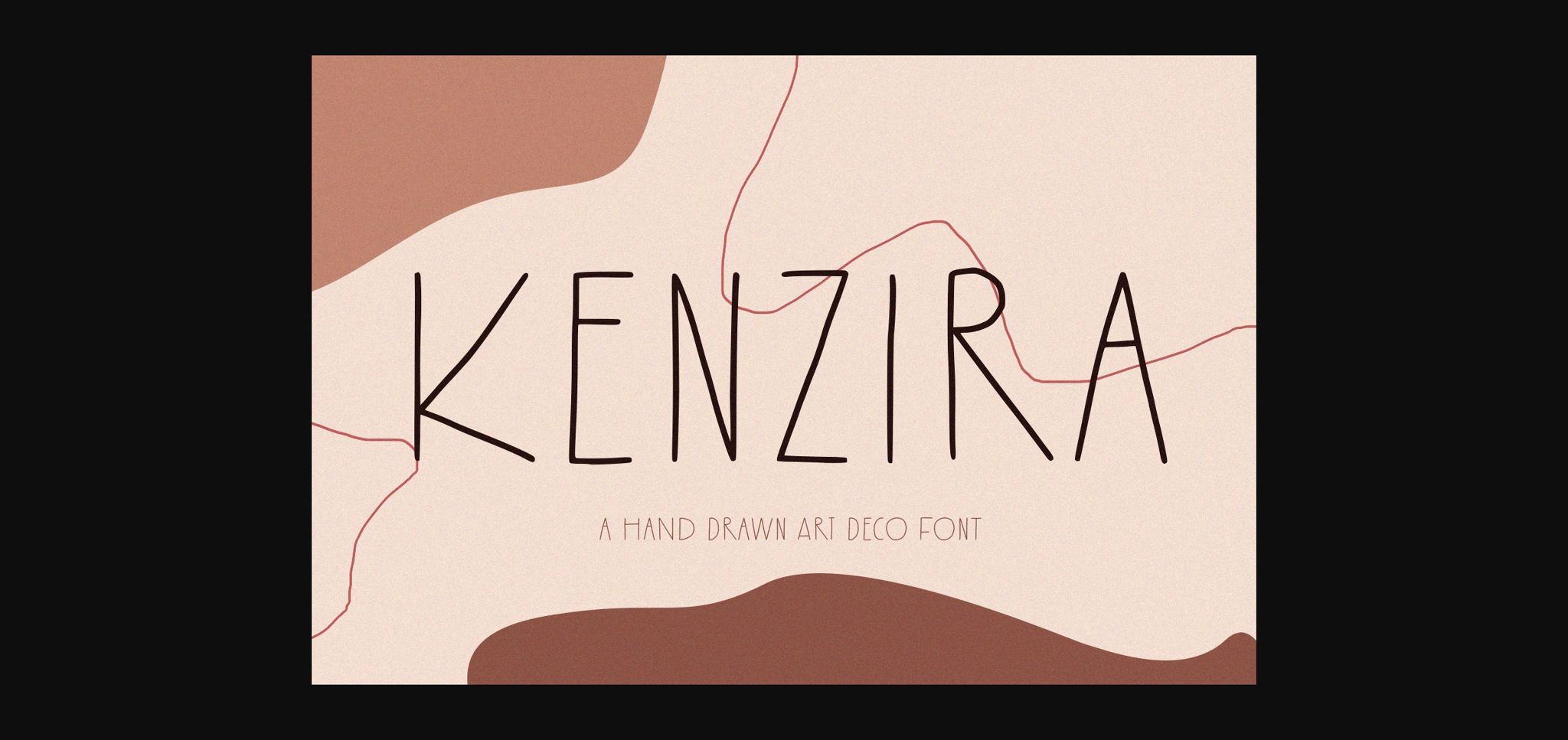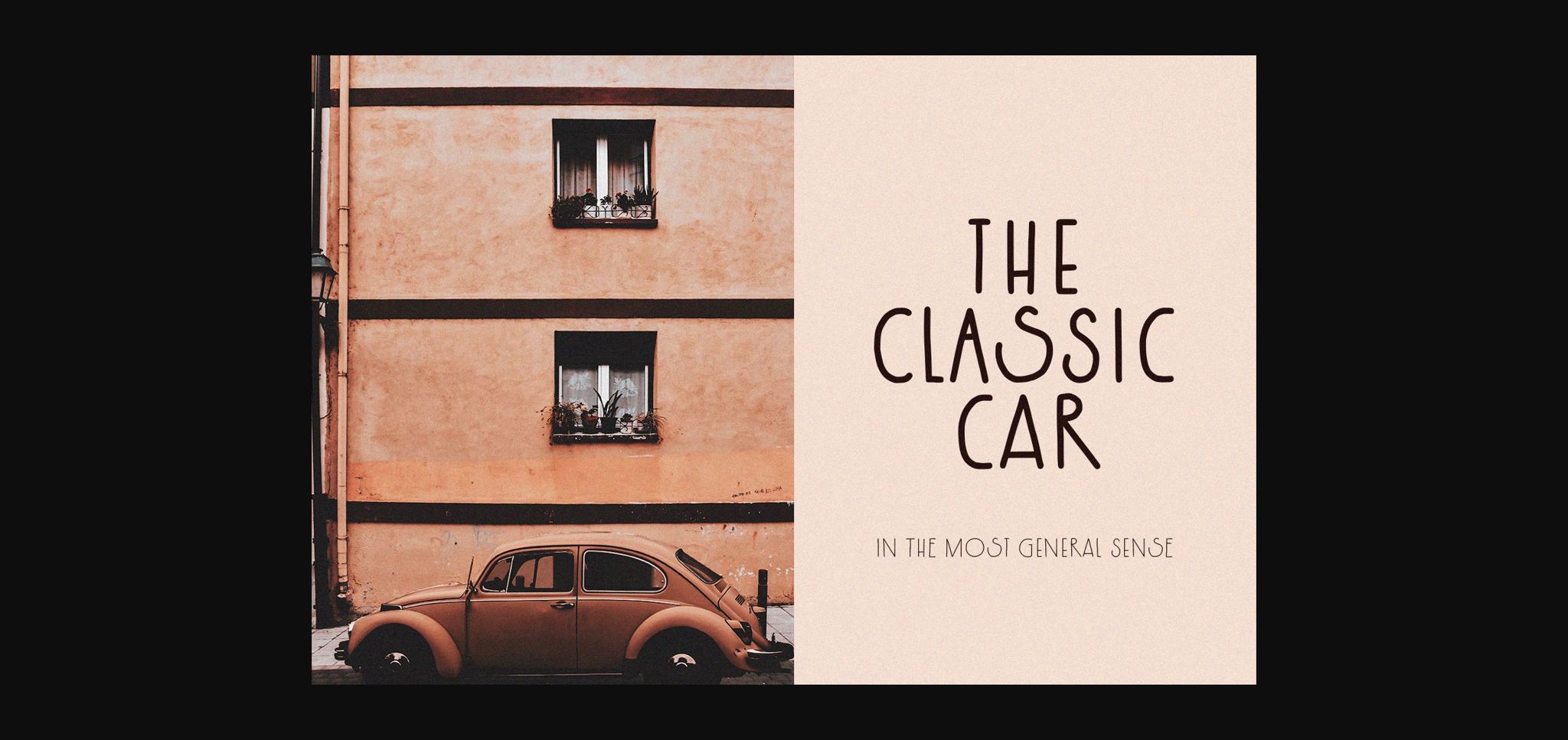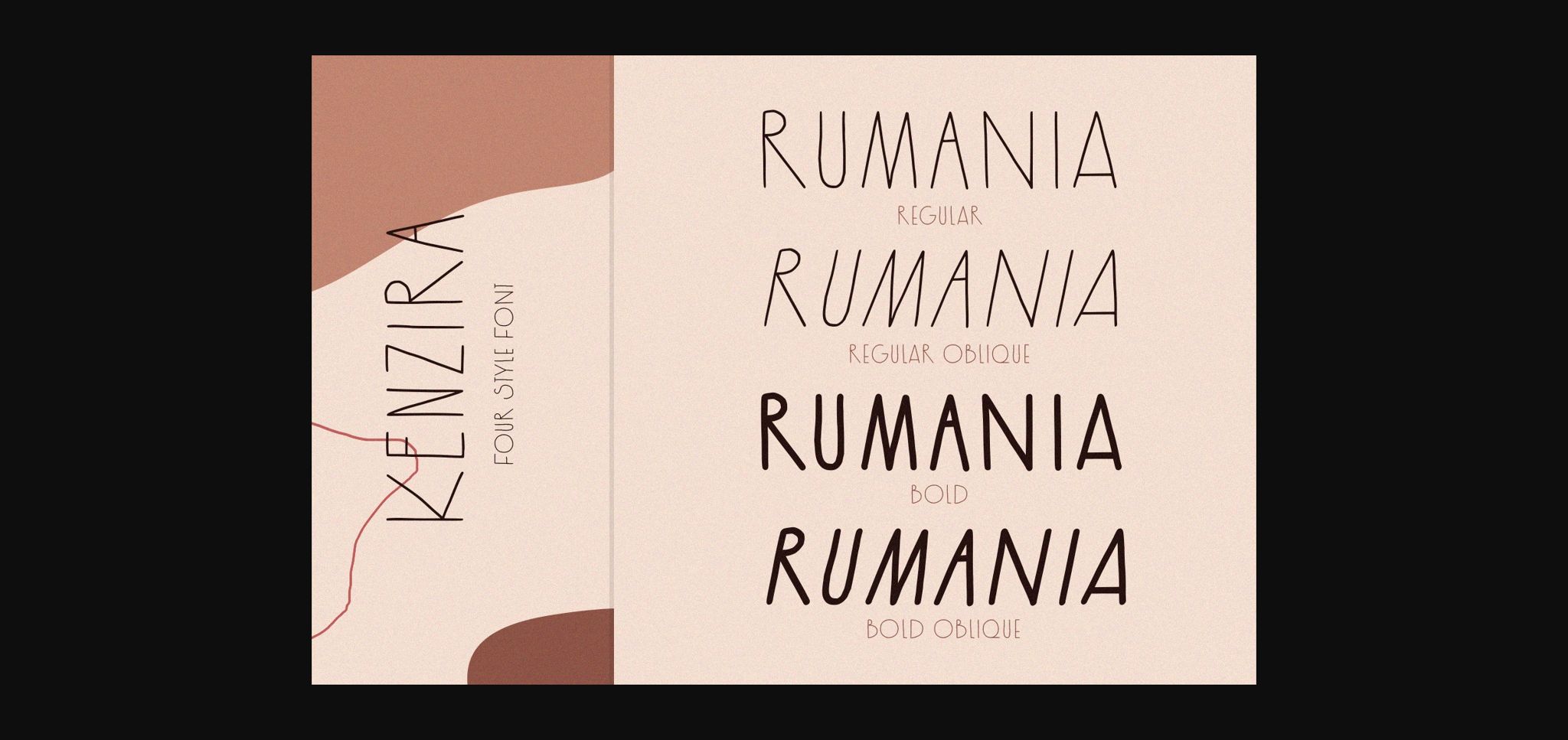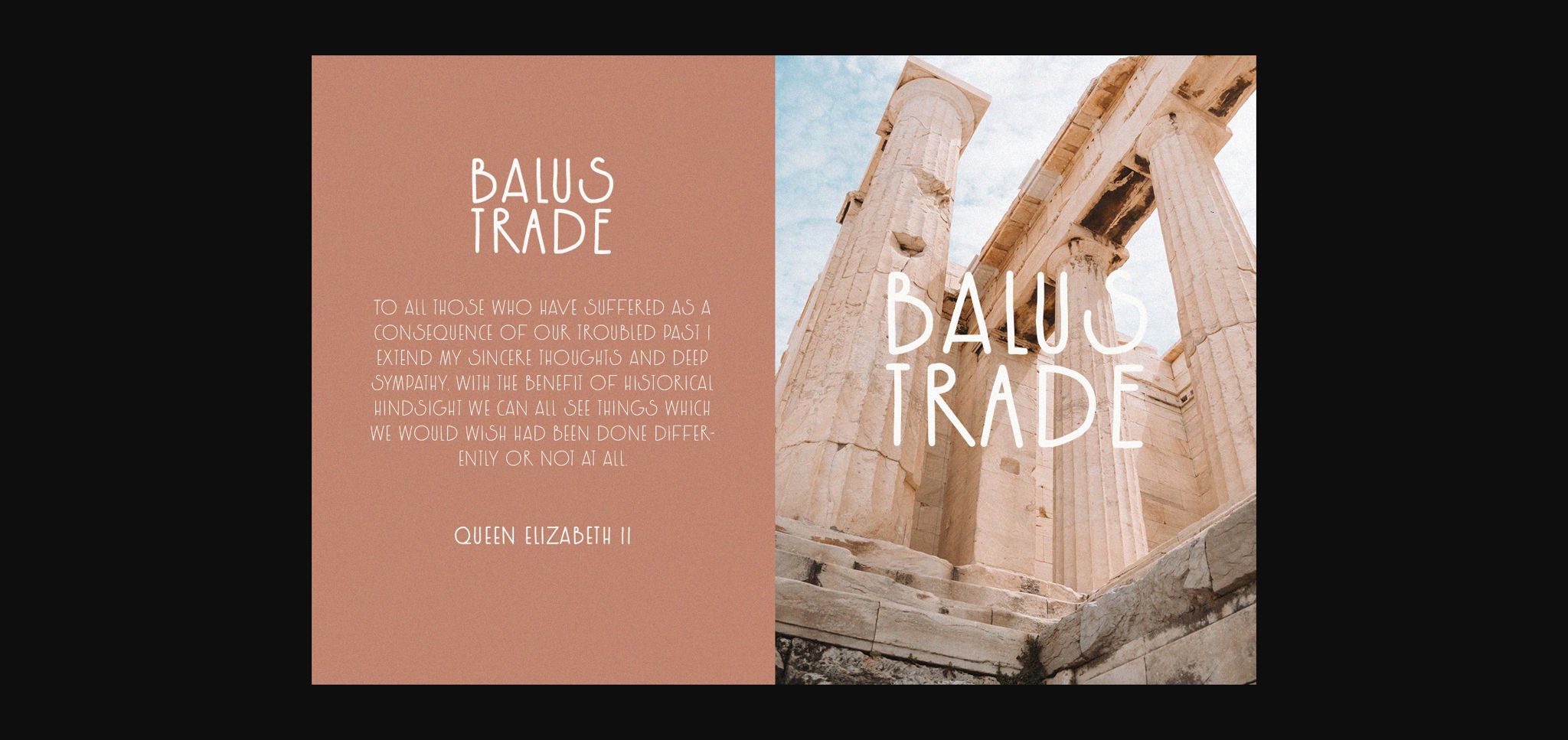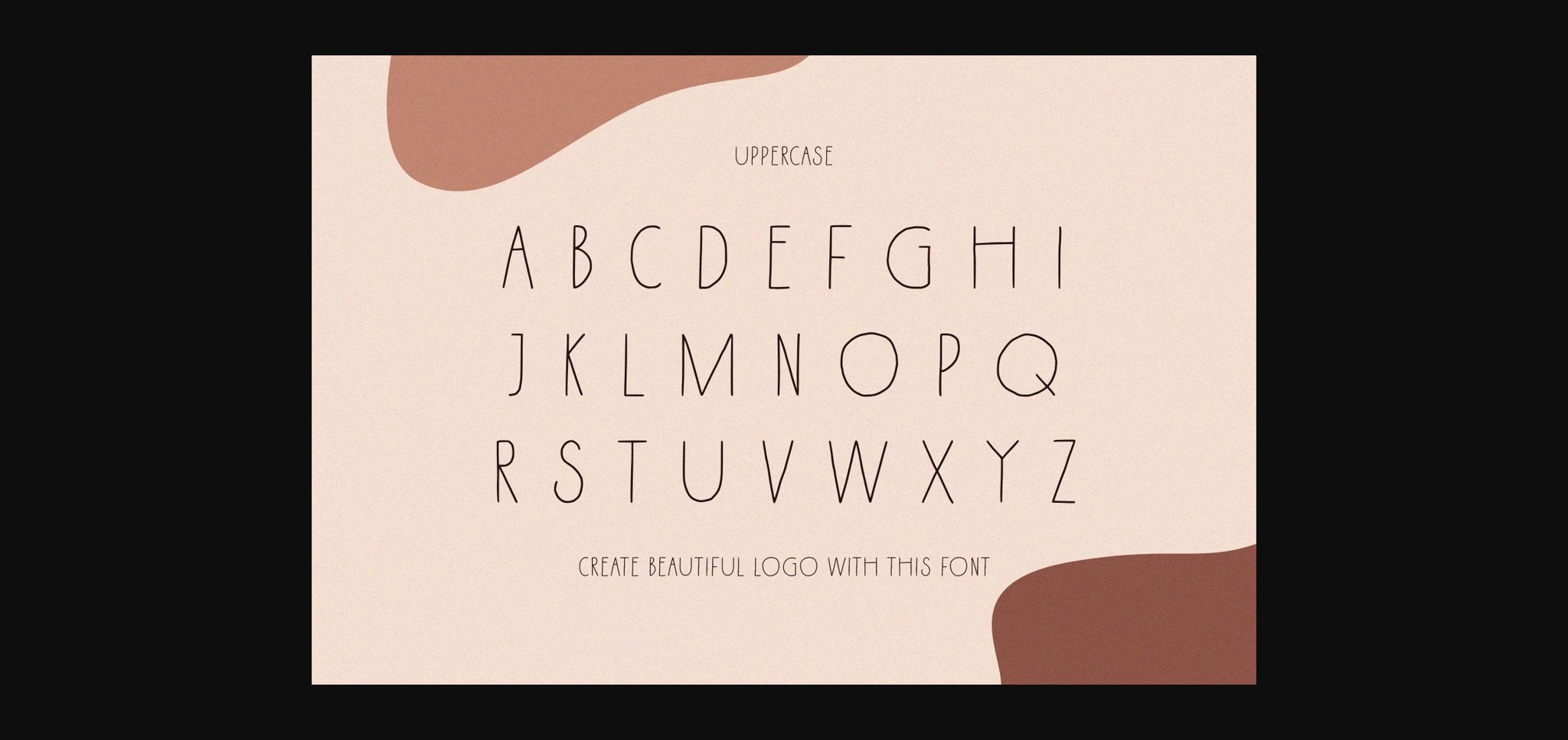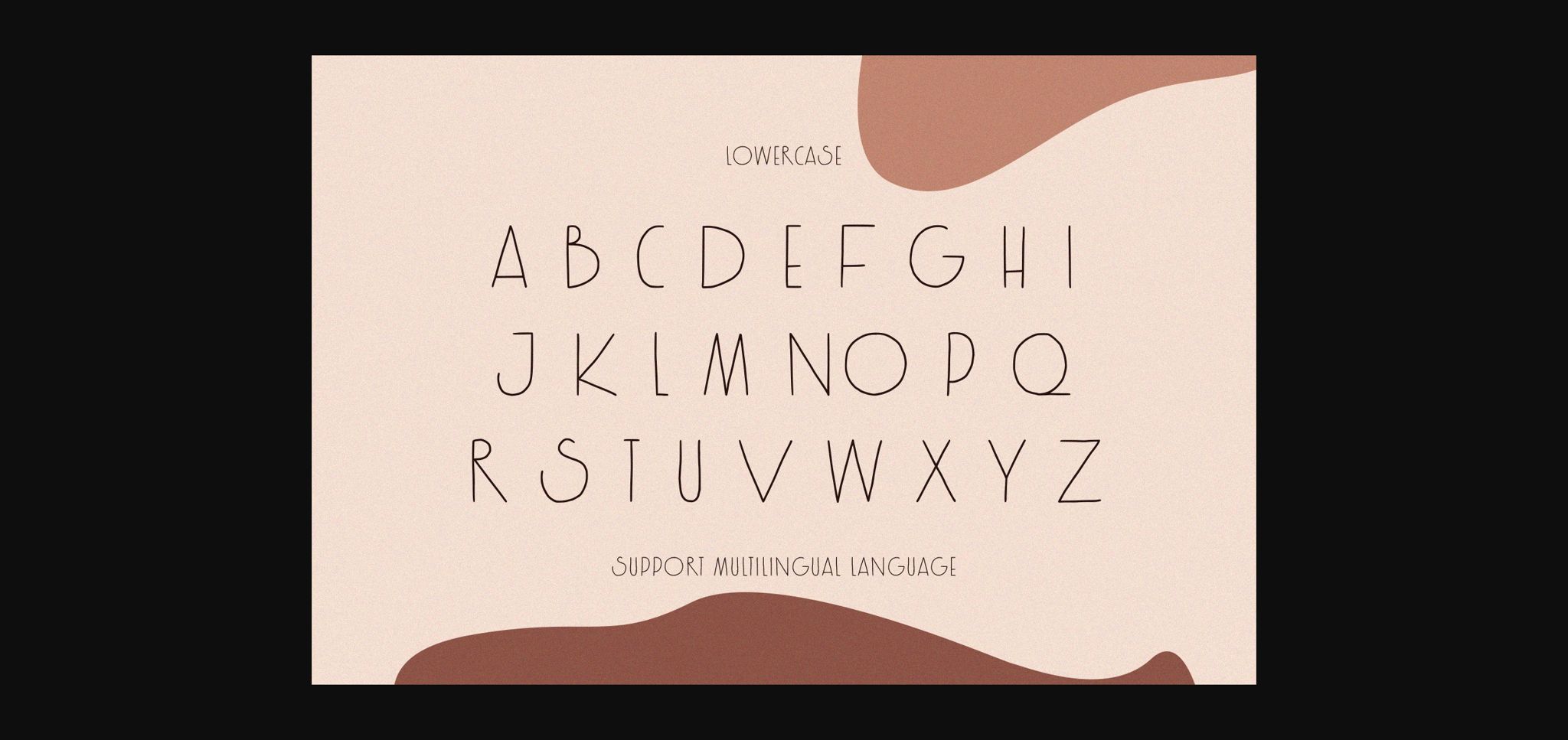
Kenzira Font
About Kenzira Font
Kenzira is a lovely sans serif font, carefully handcrafted to become a true favorite. This font will look outstanding in any context, whether it’s being used on busy backgrounds or as a standalone headline!